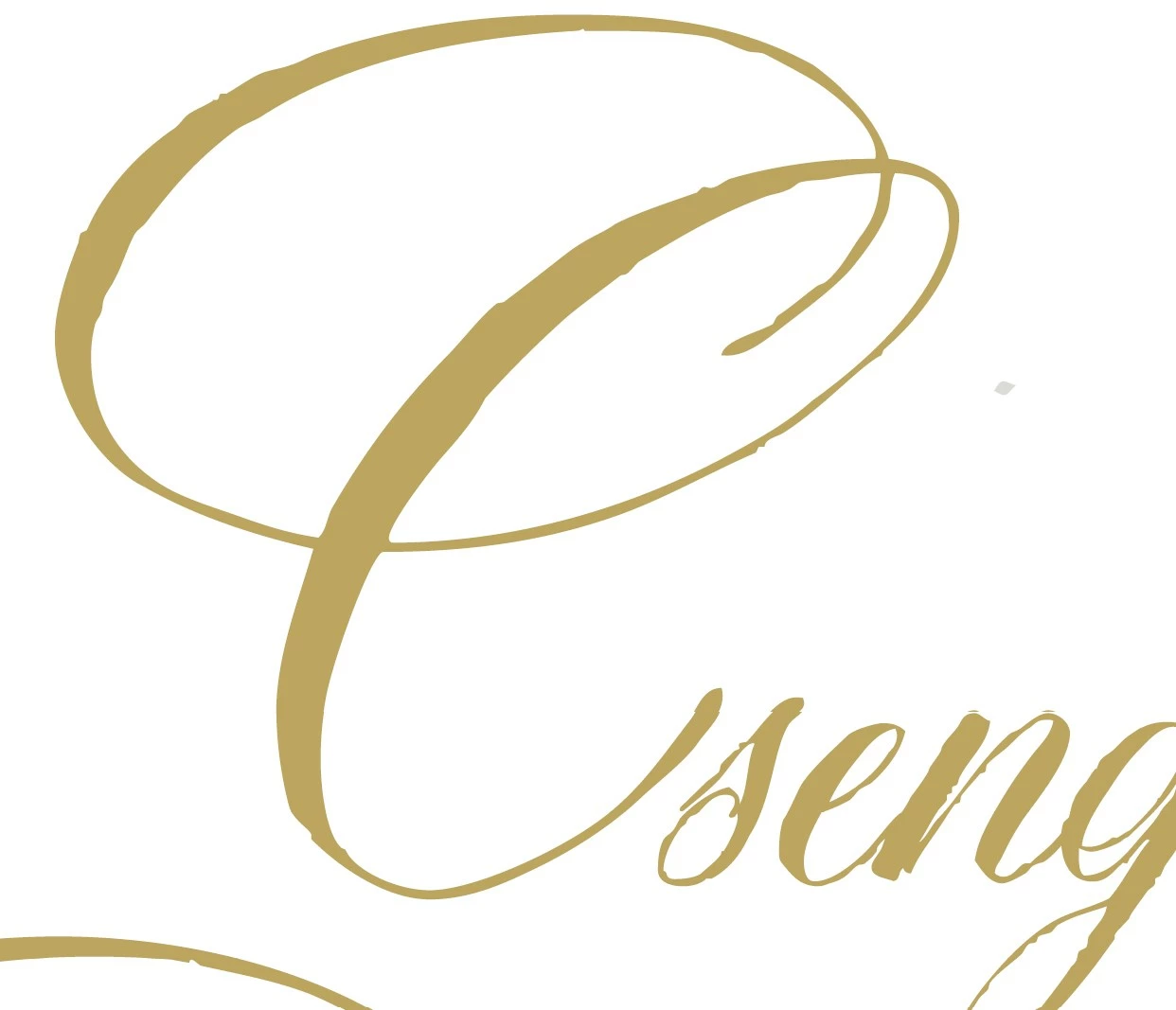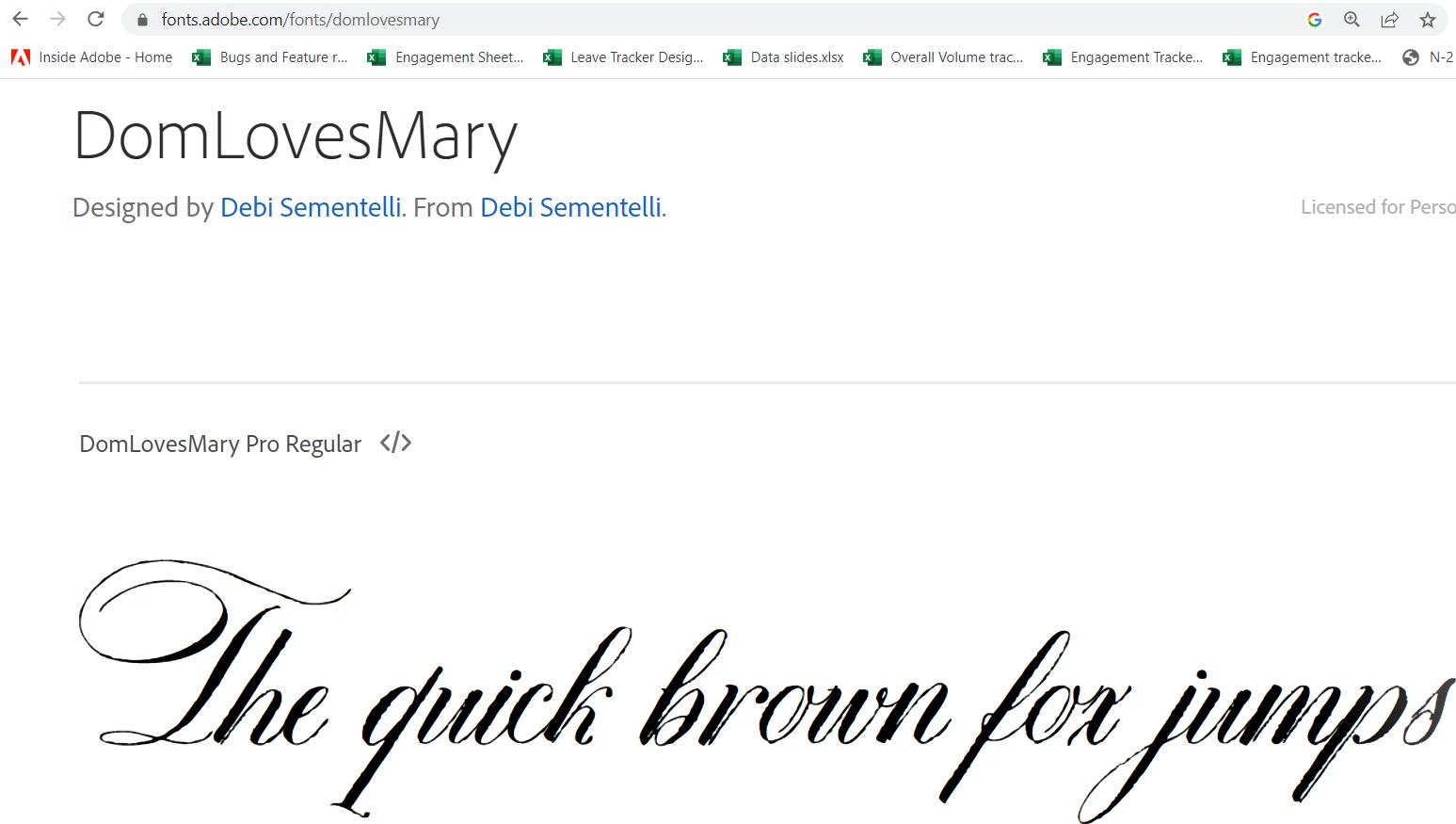
Strange looking font in InDesign
I've activated a font in the web, it appears in InDesign, but looks a "little bit" weird. Checked the font on the creator's page, I think there is OK, for me it is strange. Is it a normal thing? Is it only a preview to buy directly form the creator or something wrong with my setup? All apps are updated. The font is DomLovesMary Pro, but for example Nori Regular also the same quirky thing.
"little bit" weird - do you mean the rough edges? If yes, this is the intended design of the font.
I think the font is designed to look like hand caligraphy with pen ink on rough paper.
Do you have View | Display Performance set to High Quality? If it's set to Fast or Typical, rendering and resolution get rougher (as a tradeoff for speed), and whole most of a page might look okay, a very complex font such as this might show more "roughness" than  simpler ones.
I see the font looks the same on the font's website, InDesign, and other Adobe apps.
Could you please share the screenshot of the font from the Creator page to see the difference?